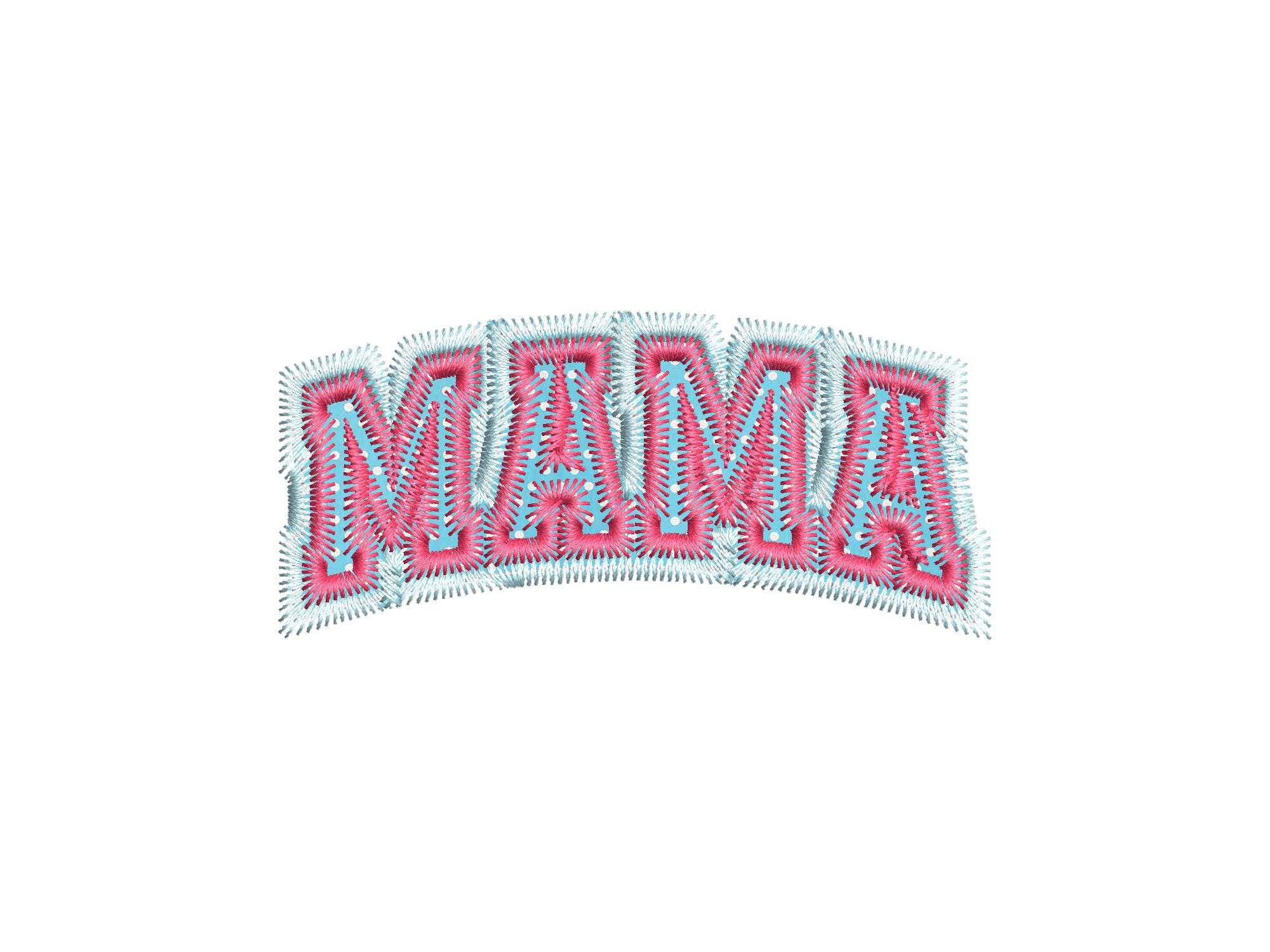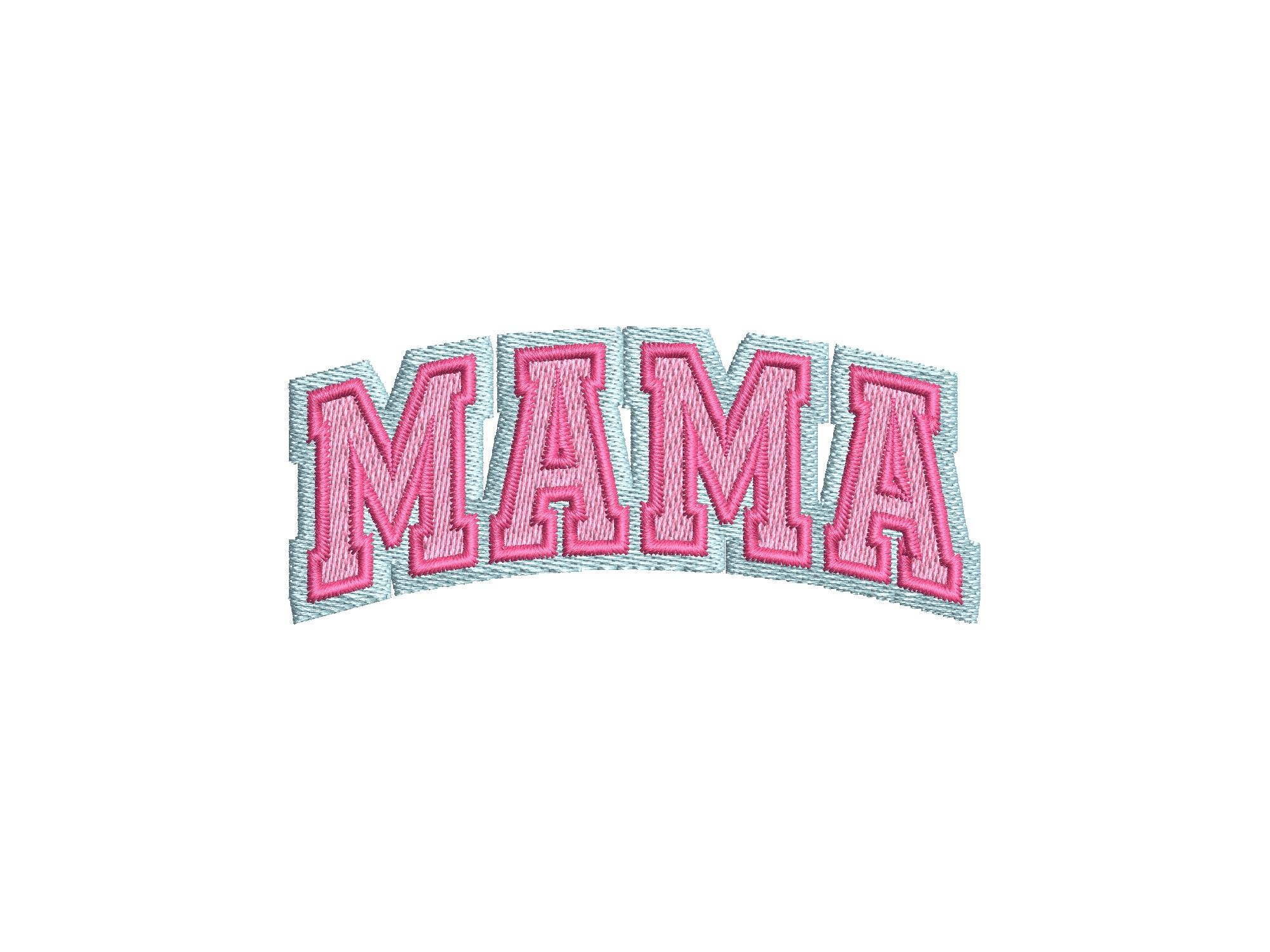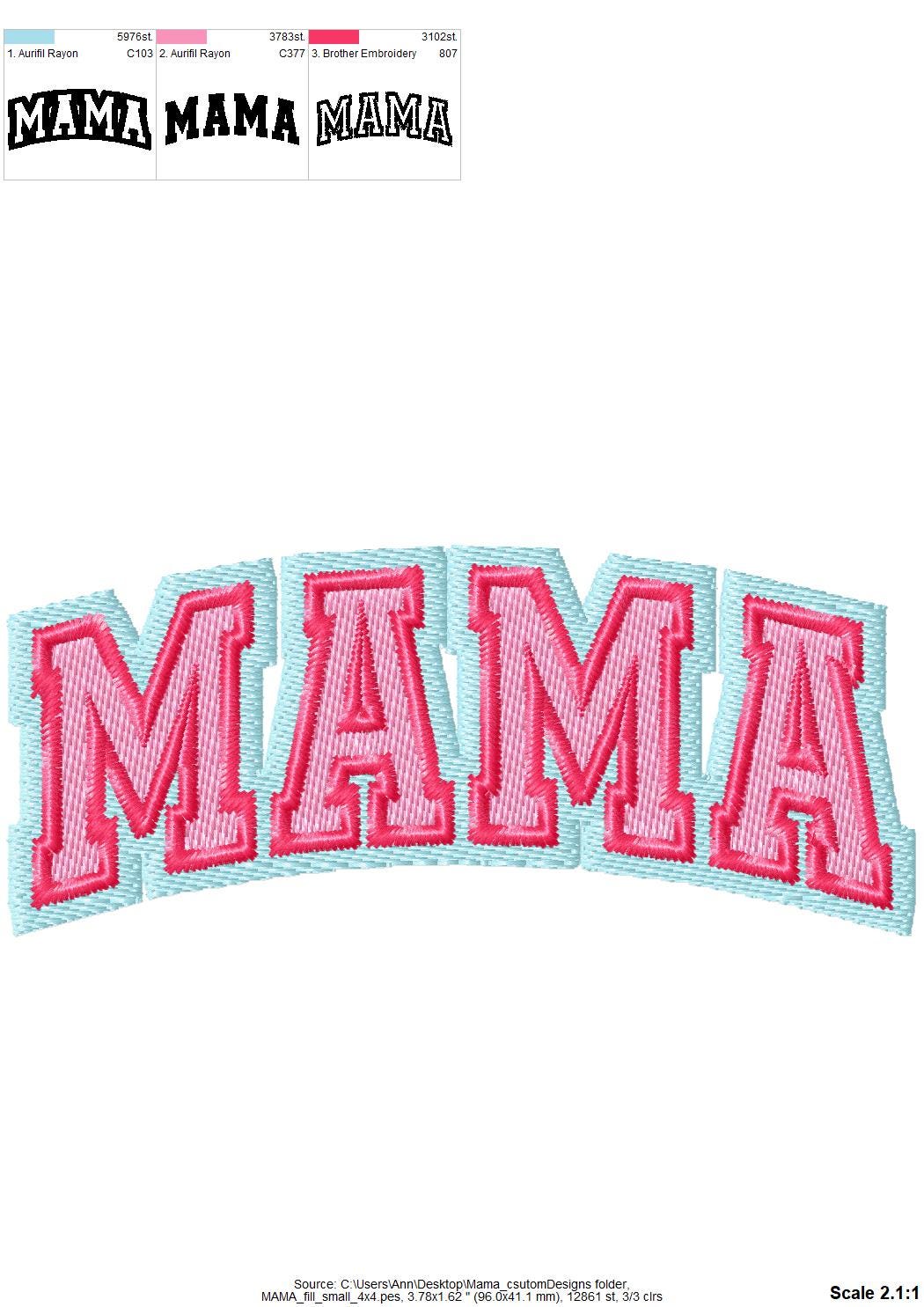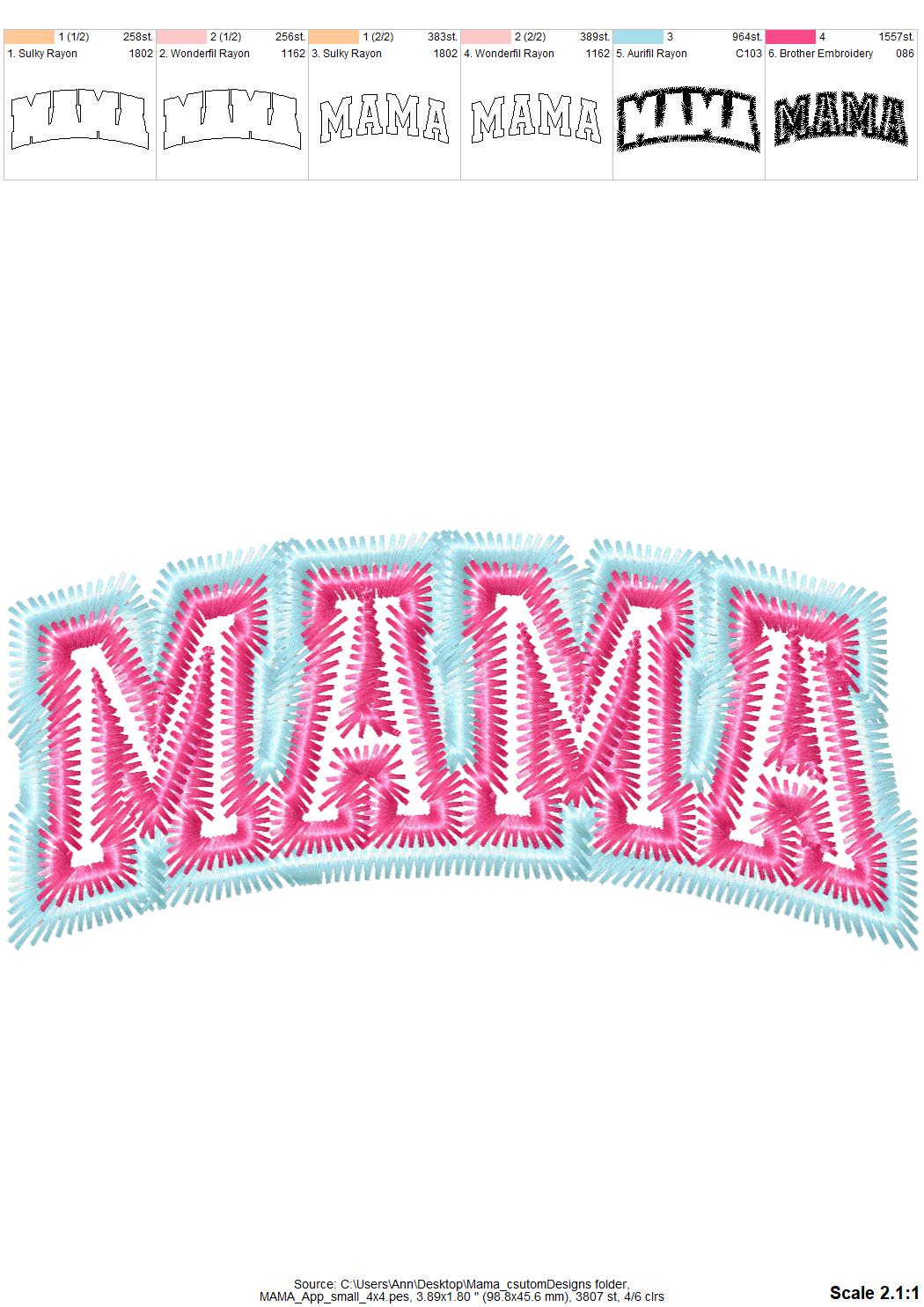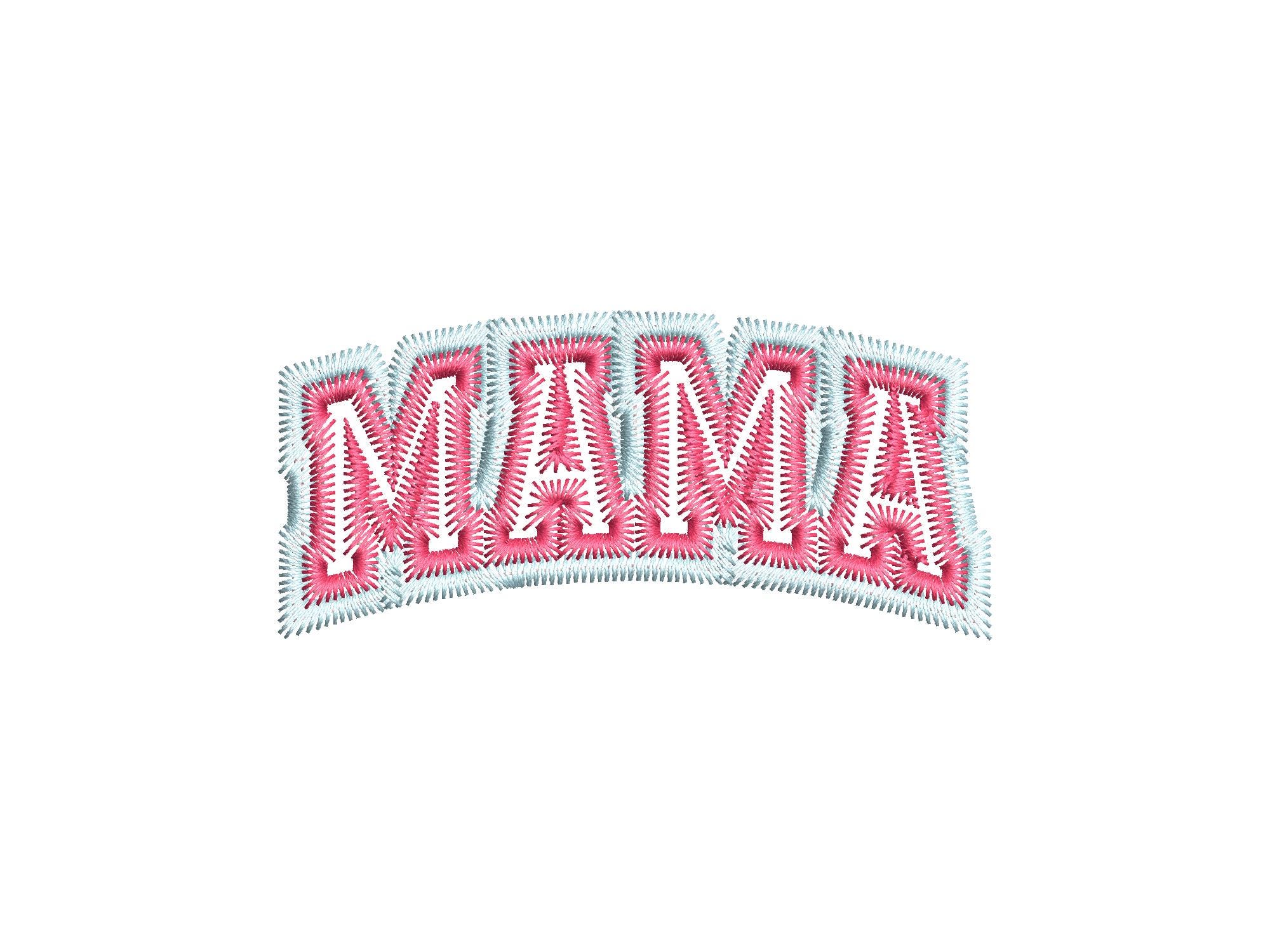
MAMA in Two Layer Applique and Fill Stitch Machine Embroidery Designs Zigzag Edge outline Block Athletic Font Mothers Day Gift idea hoop 4x4
Included 2 types:
* applique design
* fill stitch design
This is a really cute applique embroidery design with two layers of fabric and a zigzag edge stitch that will make you feel like nothing else matters.
Also included a lovely fill stitch design, for quick and easy non-stop stitching.